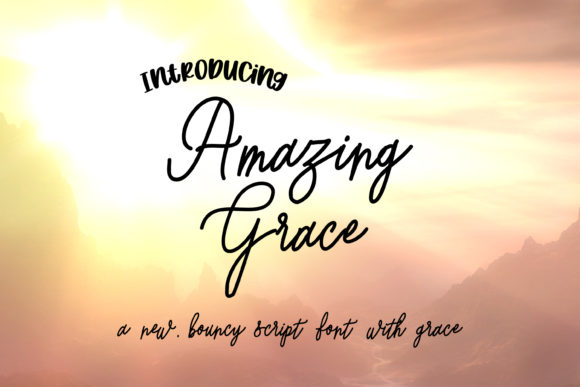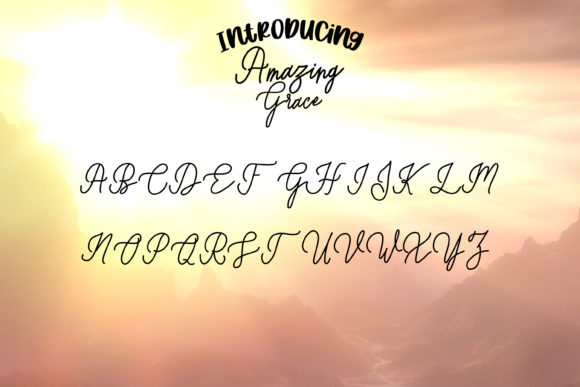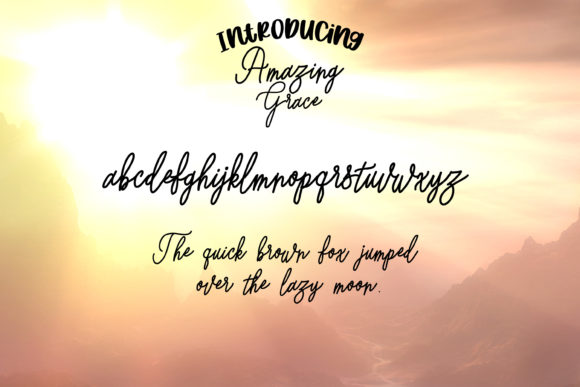
HomeScript FontsAmazing Grace Font Script Fonts Amazing Grace Font FacebookXPinterestWhatsApp Amazing Grace Font Poster 2 Amazing Grace Font Poster 3 About Amazing Grace Font Amazing Grace is a bouncy and fresh script, full of personality. It combines unique charm with quirky style. DOWNLOAD ON CREATIVE FABRICAThis font is sold and delivered by Creative Fabrica. Font Canyon may earn a commission if you buy through this link. People also explored Dominant Type Orlando Bold Font Note Planner Font Pretty Smile Font Delayne Font Summer Time Font Lumphong Gogh Font Night Story Font 356 0 TagsAmazing Grace Font Previous articleBaritta Script FontNext articlePottoray Font LEAVE A REPLY Cancel reply Comment: Please enter your comment! Name:* Please enter your name here Email:* You have entered an incorrect email address! Please enter your email address here Website: Save my name, email, and website in this browser for the next time I comment. Personal Use Free Nottingsam Personal Use Free Read more about this font BD Alm Personal Use Free Read more about this font Martani Personal Use Free Read more about this font Scarlove Personal Use Free Read more about this font BLOG Transform Your Website: Elevate Your Typography with 7 Best Web Font Generators Are you ready to transform your website's typography from ordinary to extraordinary? Great! Today, we're diving into the world of web font generators, which... Best Fonts for T-Shirt Design – Top 2025 Picks Modern Sans-Serif Fonts That Brands Love in 2025 Elegant Wedding Invitation Fonts – Handwritten & Script Fonts